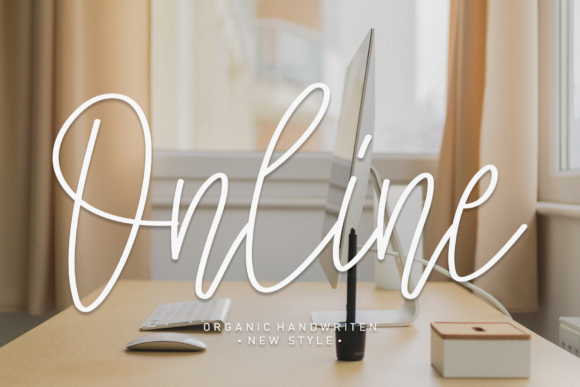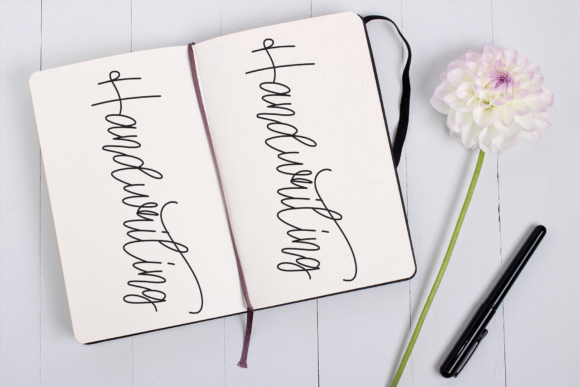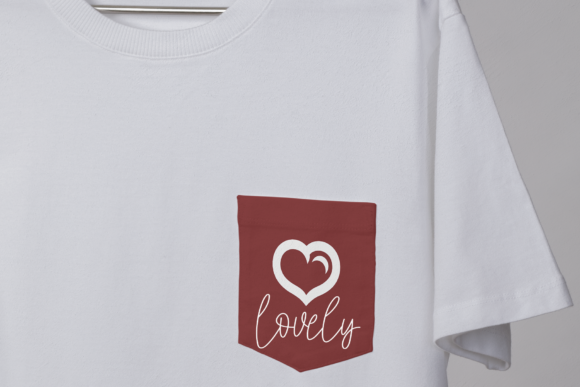
About Online Font
Online is a thin lettered, delicate and stylish handwritten font. It is defined by smooth curves and is perfect for fashion branding or editorial designs. Add it confidently to your projects, and you will love the results.